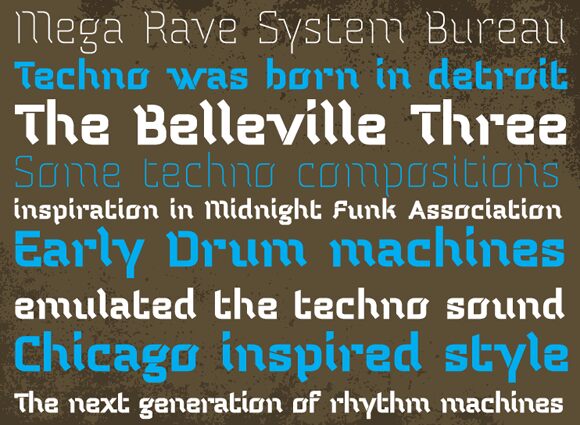
Temp Black
Temp Black font by Fabio Lima is an experimental display font that falls within the futuristic category. It was inspired by the designs normally found on electronic music flyers, and it looks to imitate their vibe with every letter. The geometric, angular style is what gives the font its strong visual appeal along with its contemporary appearance.
This free futuristic font will look amazing in posters of all kinds, signage, headlines for magazines or blogs, apparel branding/print design, product packaging/labeling, food packaging design, event tickets/entry passes, and album cover design.